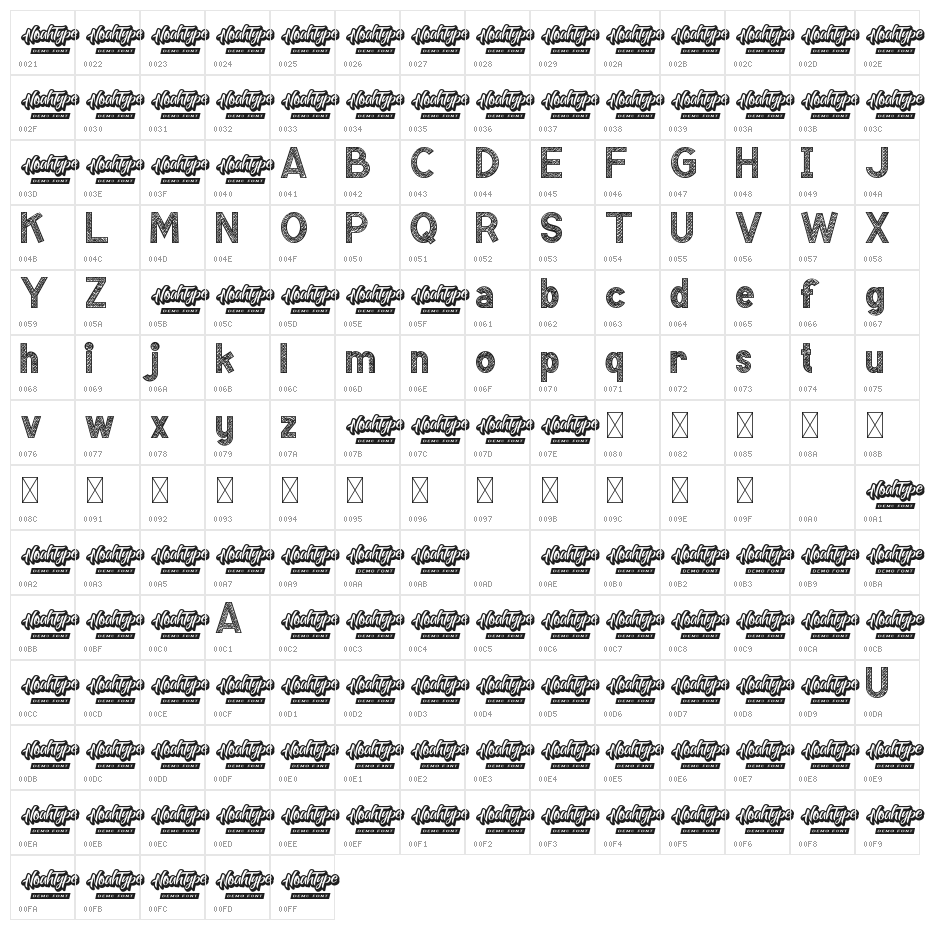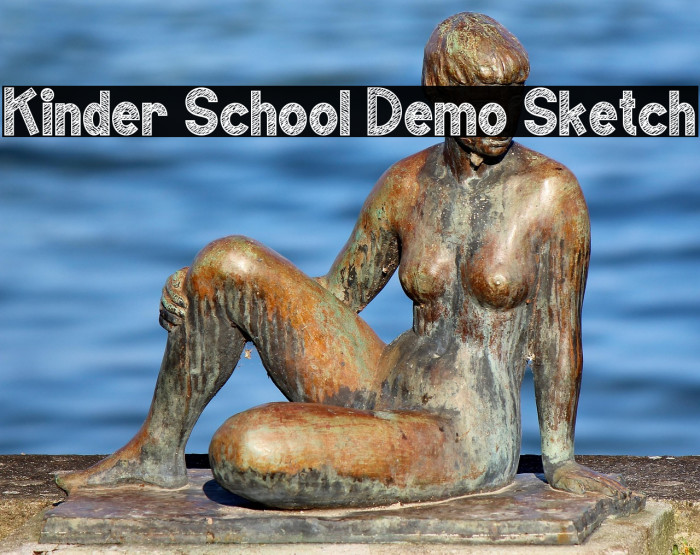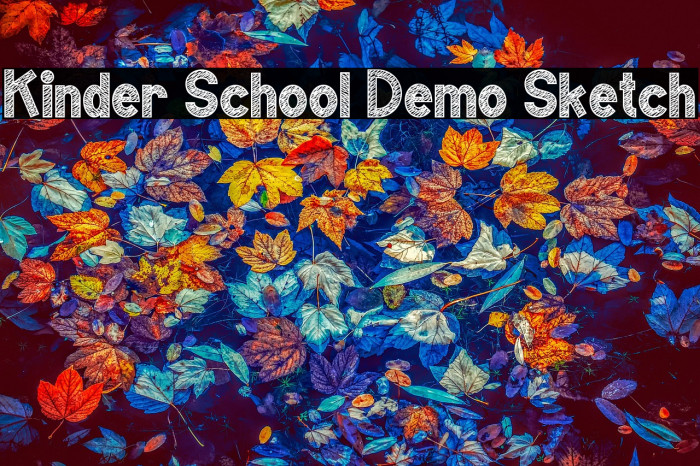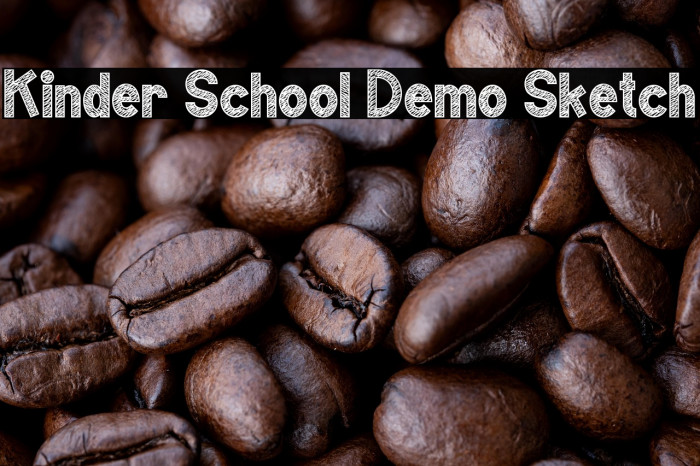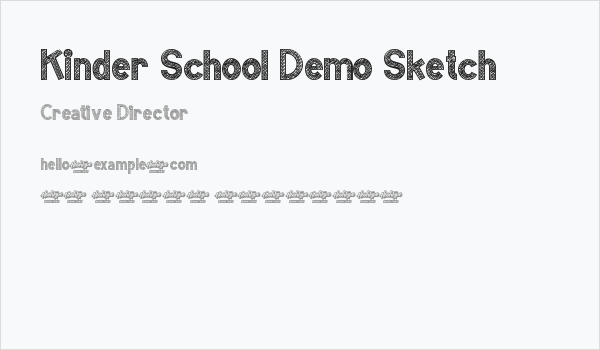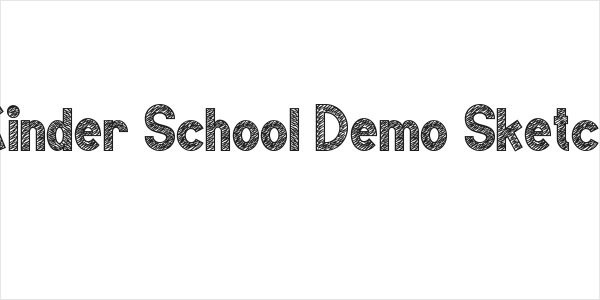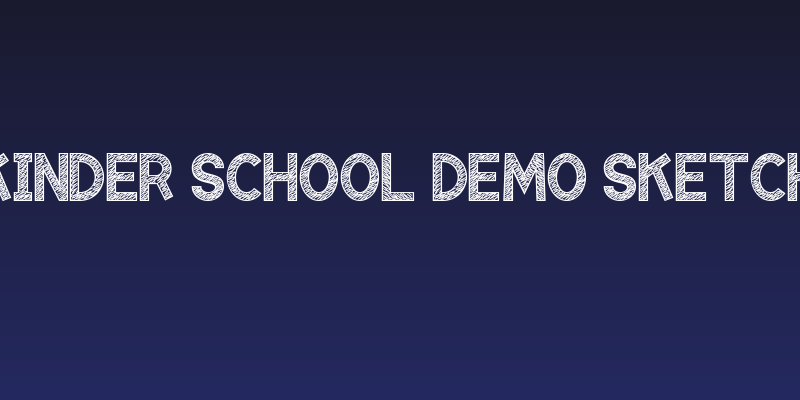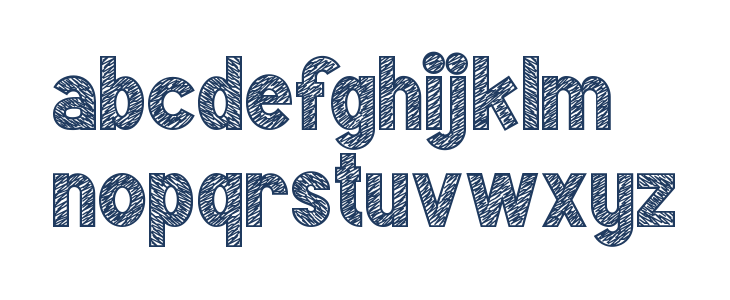
Kinder School Demo Sketch Font
Kinder School Demo Sketch Description
This playful and engaging font features a sketch-like appearance, reminiscent of hand-drawn chalk or crayon lines. The letters are bold and slightly rounded, giving them a friendly and approachable feel. The texture within each character adds a dynamic and lively quality, making it ideal for projects that require a fun and informal touch. The uppercase and lowercase letters maintain consistent proportions, ensuring readability while still conveying a sense of whimsy. This font is perfect for educational materials, children's books, or any design that aims to capture a youthful and creative spirit.
| Overall Style | Playful, Creative |
| Proposed Projects | Children's books, educational materials, playful branding, posters, and creative invitations. |